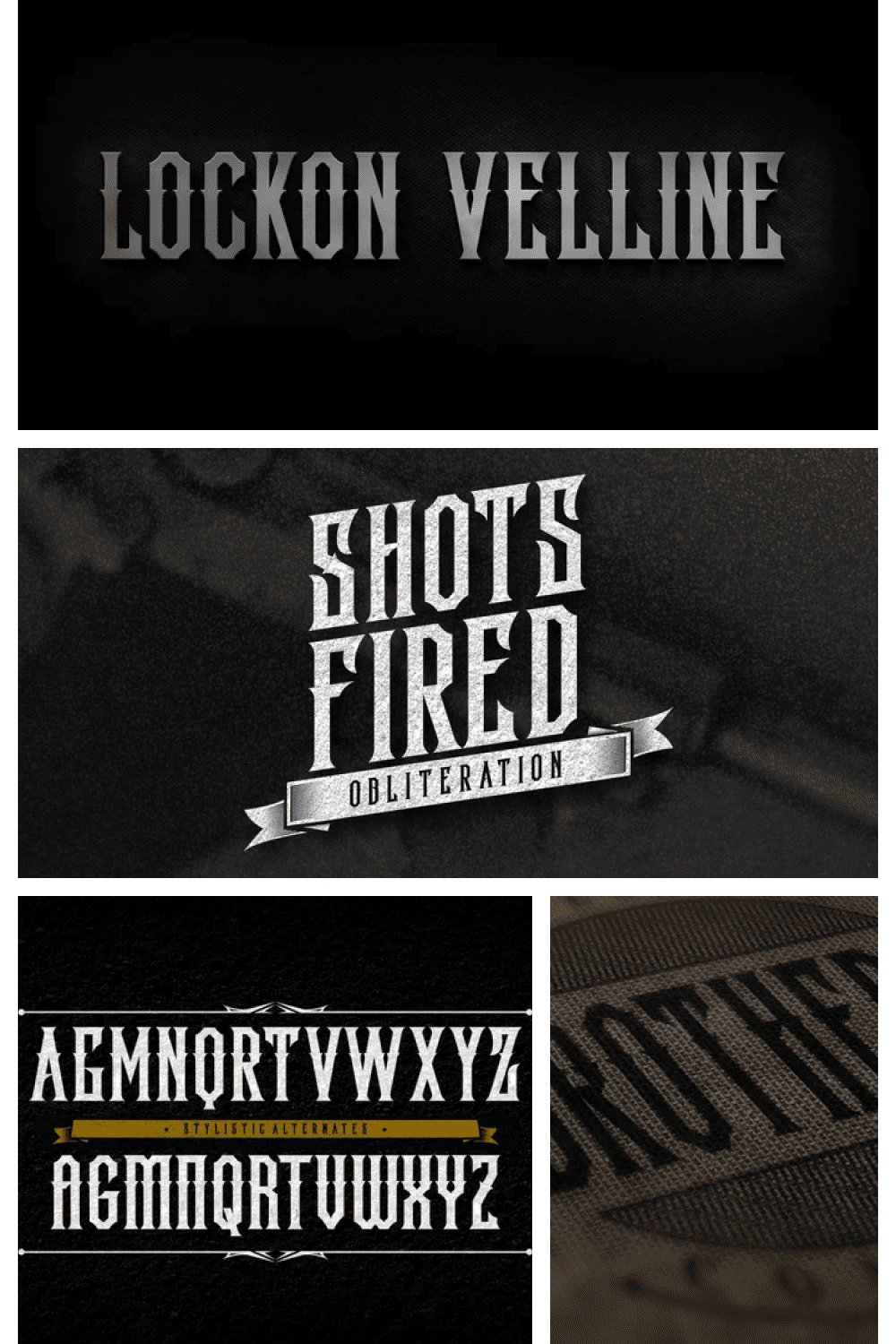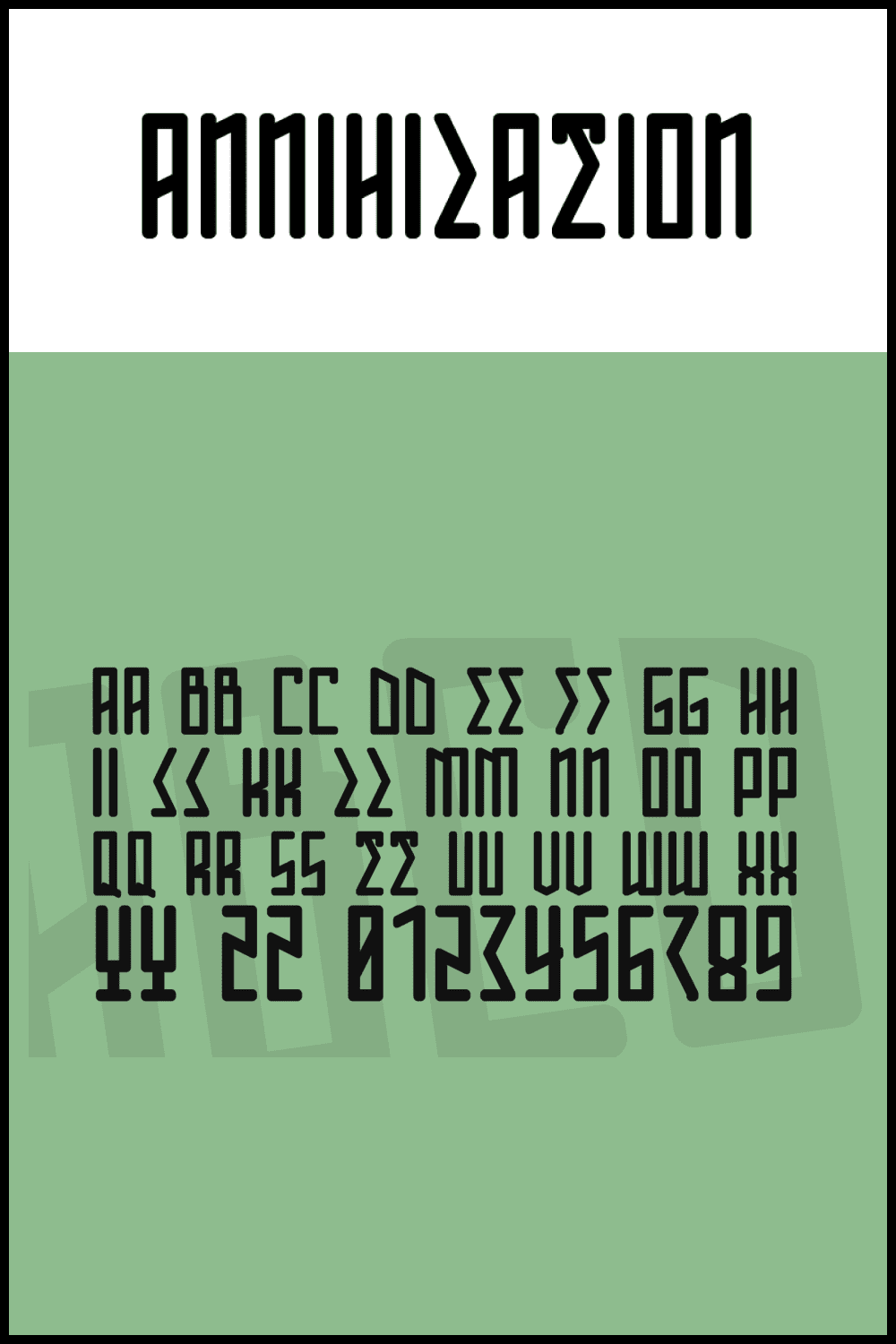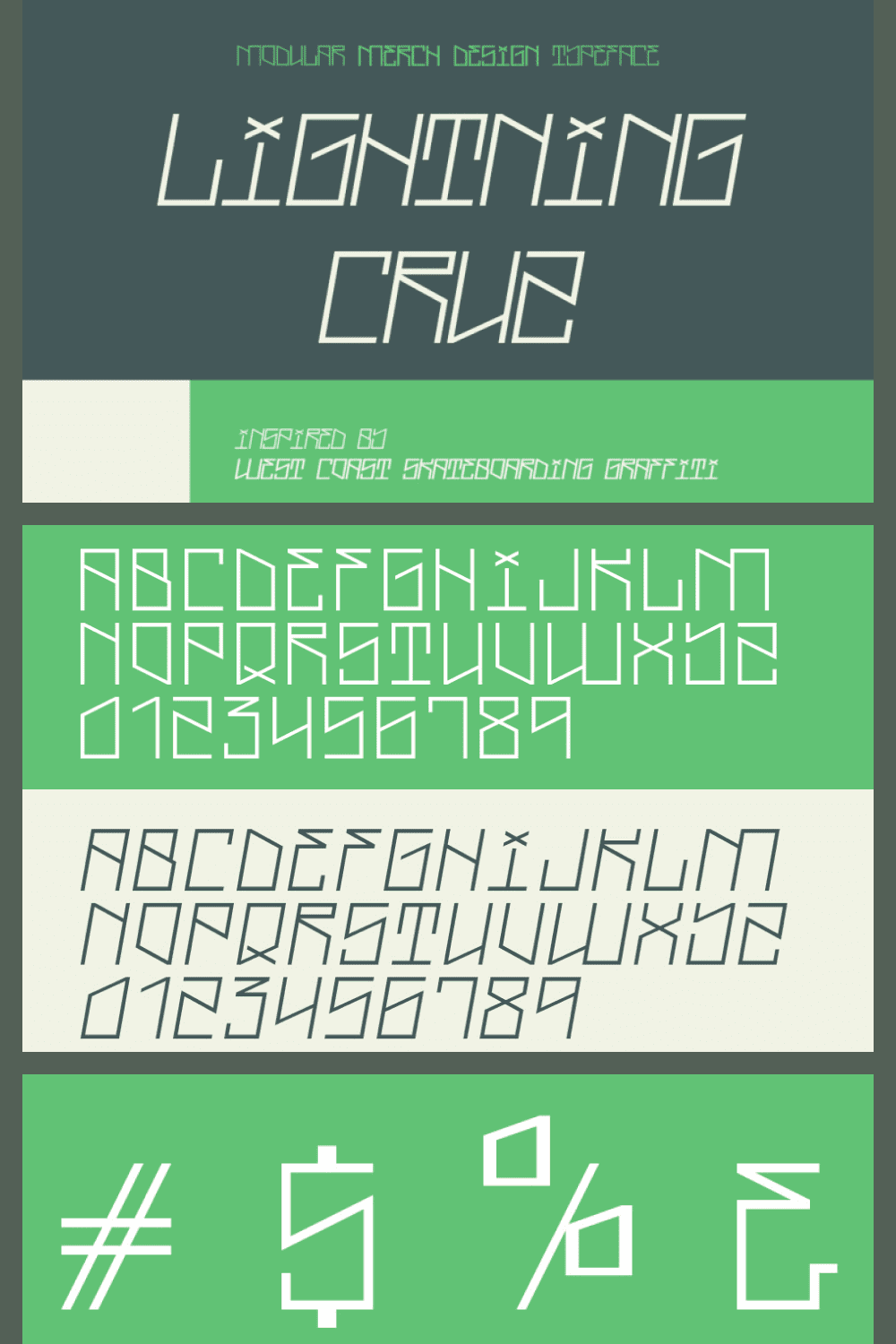
West Coast Fonts. The West Coast is a romantic duo of fonts. It features a handwritten calligraphy style and is perfect for adding naturalness to your designs. It’s perfect for invitations, branding, packaging designs, and more!
West Coast lines start to shake in long texts, so be careful to use this family for special occasions and in small numbers. Imagine: on a cold day, you just returned home from a frosty walk to receive a cup of hot cocoa with marshmallows. This effect can be called the West Coast Effect.
In general, if you want something unusual, with a taste of the West, then this font will help you decorate your text. To make it easier for you to understand what exactly you like, we offer you a selection of free and premium West Coast fonts.